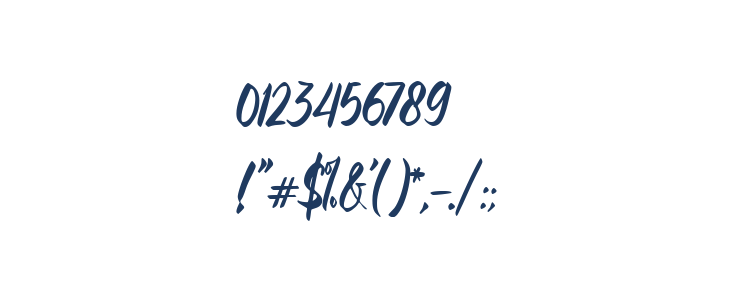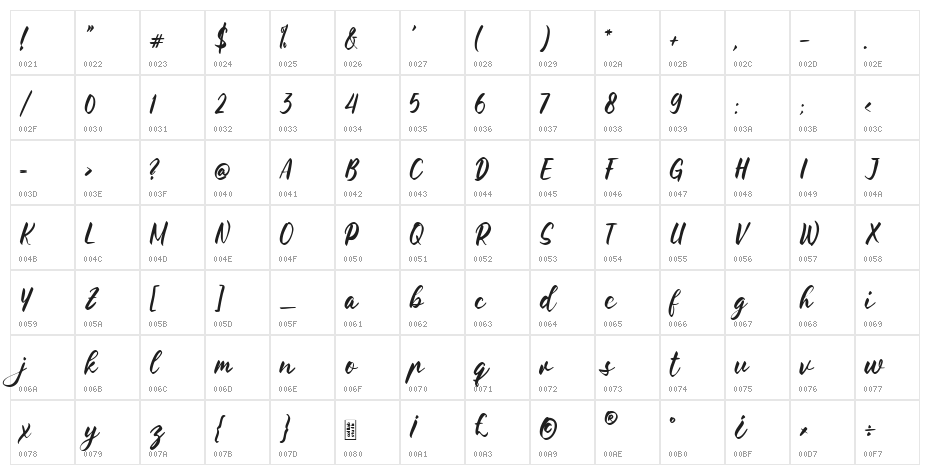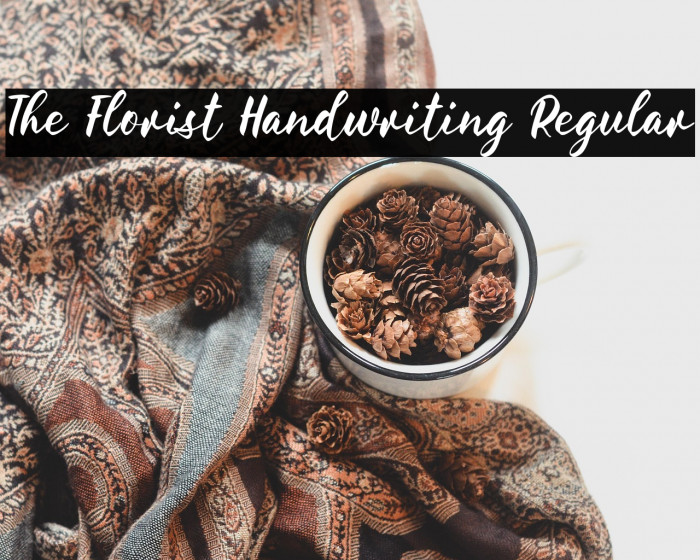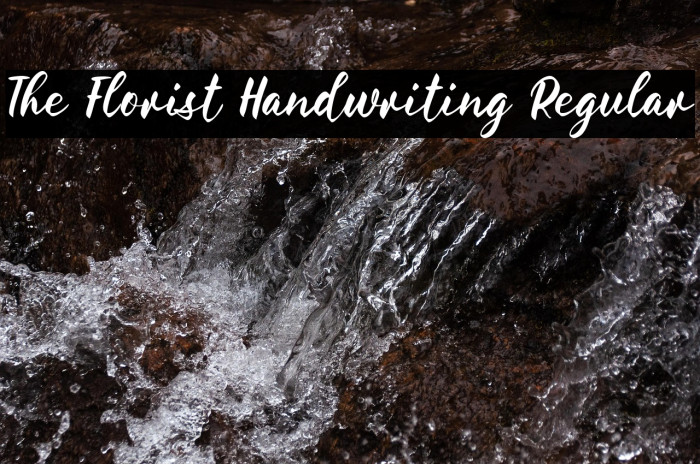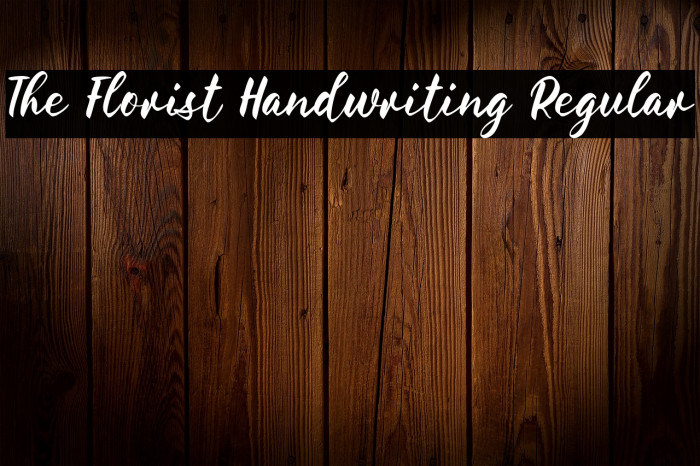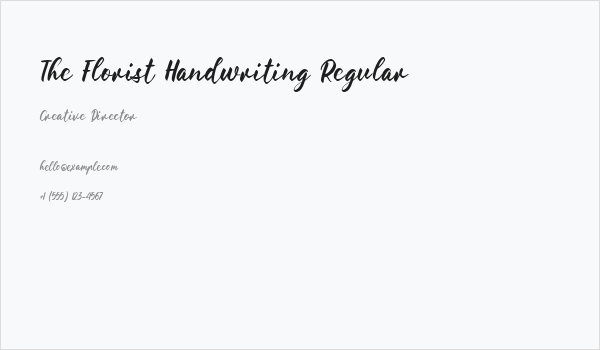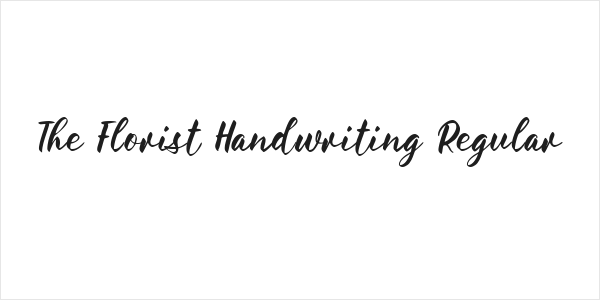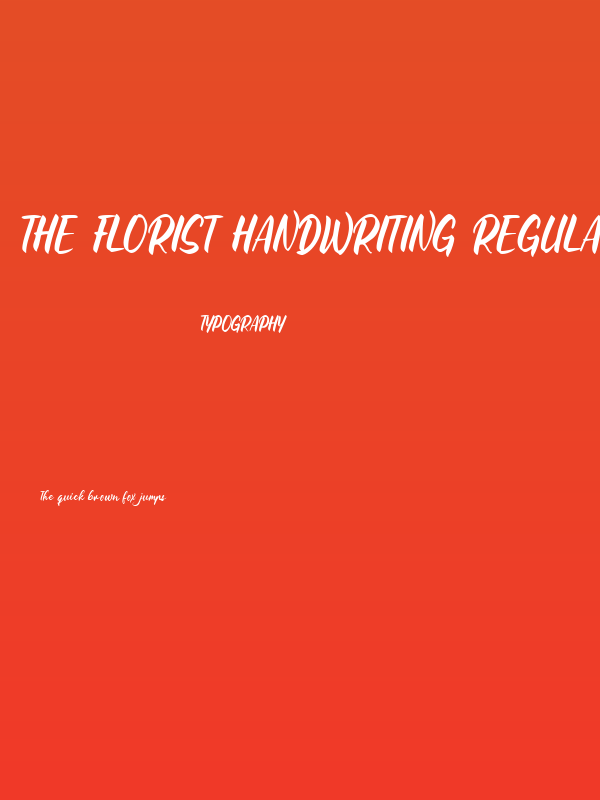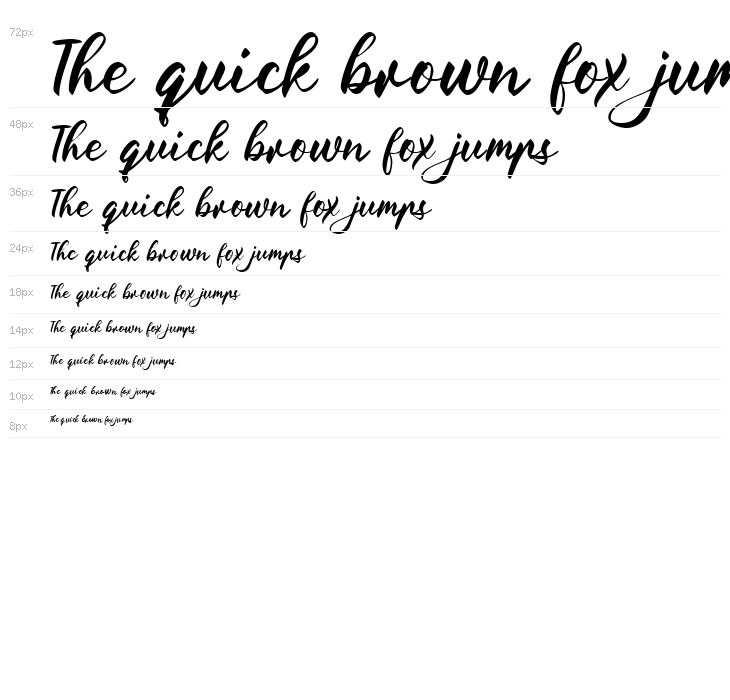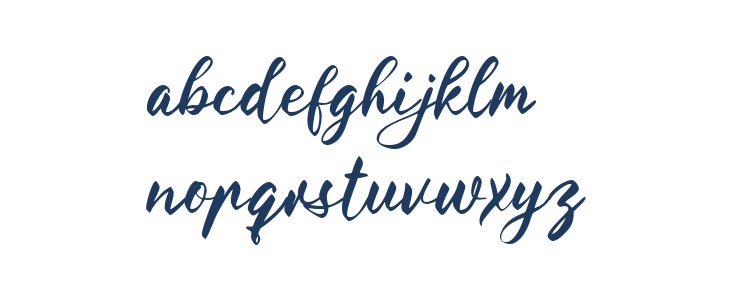
The Florist Handwriting Regular Font
The Florist Handwriting Regular Description
This font exudes a charming and fluid handwritten style, reminiscent of elegant calligraphy. The letters are connected in a smooth, flowing manner, giving it a natural and personal touch. The strokes are bold and confident, with a slight slant that adds to its dynamic appearance. The uppercase letters are slightly larger and more pronounced, while the lowercase letters maintain a consistent flow. Numbers and special characters are crafted with the same attention to detail, ensuring a cohesive look across all elements. This font is perfect for projects that require a personal, yet stylish touch.